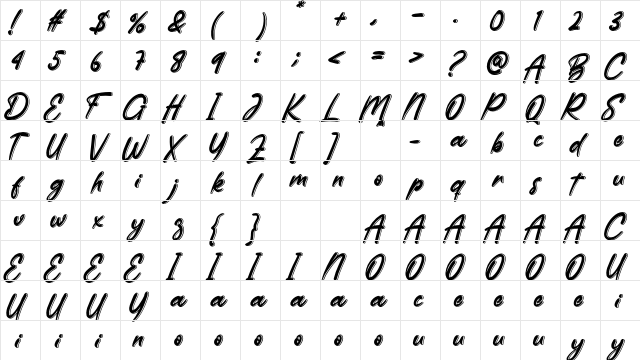
Roystorie Handcraf Regular
Design Context for Roystorie Handcraf Typeface
Roystorie Handcraf brings a calligraphic fluidity to the page — its connecting strokes and expressive curves give it an unmistakably human quality.
Font Pairing: Combine Roystorie Handcraf with a simple geometric sans for maximum contrast — the tension between flowing curves and clean structure is a classic typographic pairing.
Pro Tip: Use Roystorie Handcraf for short runs of text — names, titles, or taglines. Extended body copy in script faces tires the eye quickly.